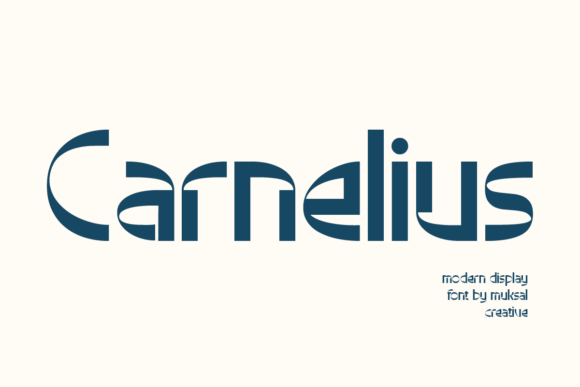
Looking for the perfect font to make your business stand out? Look no further than Carnelius Font! Created by Muksal Creative, this unique and interesting display font is guaranteed to catch the eye and leave a lasting impression.
With its quirky and captivating design, Carnelius Font is unlike any other. Whether you're designing a logo, creating social media graphics, or working on a marketing campaign, this font will elevate your brand and make it truly memorable.
One of the best features of Carnelius Font is its versatility. It seamlessly adapts to any context, making it the ideal choice for various projects. Whether you're going for a modern and minimalistic look or a more vintage and retro vibe, this font has got you covered.
Imagine your business name or slogan beautifully crafted in Carnelius Font. This font exudes creativity and personality, making it perfect for businesses that want to stand out from the crowd. Its unique style adds a touch of whimsy and charm, instantly capturing the attention of your target audience.
Not only does Carnelius Font look amazing, but it also performs exceptionally well in terms of readability. Its clean and well-defined characters ensure that your message is clear and easily understood. You won't have to worry about your audience struggling to decipher your text – Carnelius Font makes reading effortless.
Choosing the right font for your business is crucial for creating a strong visual identity. Carnelius Font is the best font for business plans as it represents professionalism, innovation, and creativity. It exudes confidence and sophistication, making it the perfect choice for startups, established companies, and everything in between.
Stand out from the competition and make a bold statement with Carnelius Font. Whether you're designing a website, creating marketing materials, or crafting social media posts, this font will captivate your audience and leave a lasting impression.
Remember, first impressions matter. Choose Carnelius Font and make every word count. Your business deserves the best, and Carnelius Font delivers excellence in every letter.